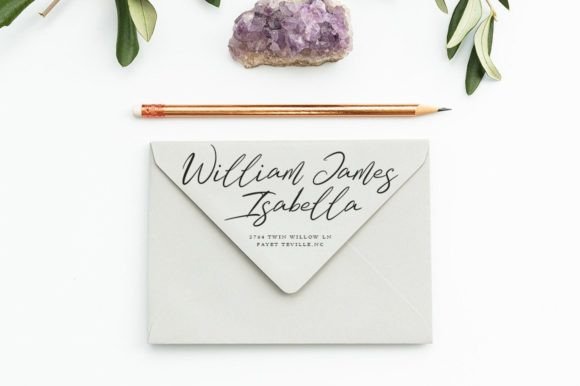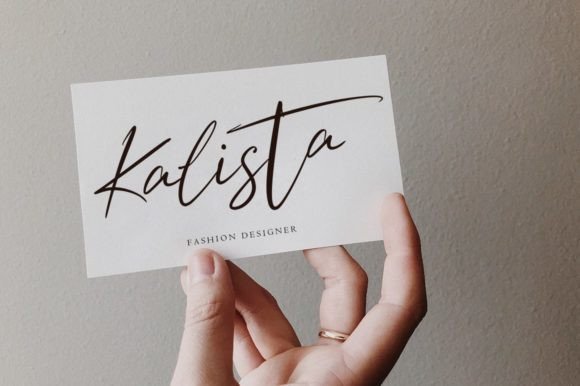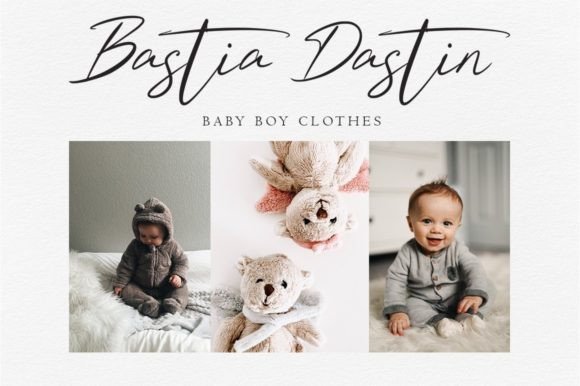
Blues Signatured Font
About Blues Signatured Font
Blues Signatured stands as a striking script font, exuding a bold and distinctive vibe that draws inspiration from the timeless art of classic writing. Its captivating aesthetics make it a versatile choice, seamlessly fitting into a myriad of creative projects to enhance their visual appeal.
This font proves to be a powerhouse for various applications, making it an ideal selection for branding initiatives, where a unique and memorable visual identity is paramount. The bold strokes and elegant curves of Blues Signatured add a touch of sophistication to logos, ensuring that your brand is not just seen but also leaves a lasting impression.
When it comes to special occasions, Blues Signatured shines brightly. Its graceful script lends itself perfectly to wedding invitations, infusing them with an air of romance and refined charm. Similarly, for greeting cards that seek to convey heartfelt messages, this font becomes a vehicle for sentiments, enhancing the emotional impact of your words.
Posters and business cards benefit from the bold presence of Blues Signatured, commanding attention and making a statement. Whether promoting an event or representing a business, the font’s unique character adds an extra layer of visual interest, setting your designs apart.
For projects that involve conveying quotes or creating blog headers, Blues Signatured offers a distinctive typographic solution. The interplay of boldness and elegance adds a dynamic flair to the text, capturing the essence of the content and engaging the audience from the first glance.
In the realm of fashion and clothing, Blues Signatured becomes a tool for crafting memorable and stylish statements. Its expressive script can be utilized on labels, tags, or as a prominent feature in clothing designs, injecting a sense of sophistication and trendiness.
Letters and stationery take on a new dimension with Blues Signatured, transforming ordinary correspondence into a visually pleasing experience. The font’s classic yet bold feel elevates the written word, making each letter or note a work of art.
In summary, Blues Signatured transcends its status as a font; it is an artistic medium that enhances the visual impact of various projects. Its bold vibe, coupled with classic writing aesthetics, makes it a go-to choice for those seeking to infuse their designs with style, personality, and a touch of timeless elegance. Whether applied to branding, invitations, cards, posters, or a range of other creative endeavors, Blues Signatured stands out as a font that inspires and leaves a lasting impression.